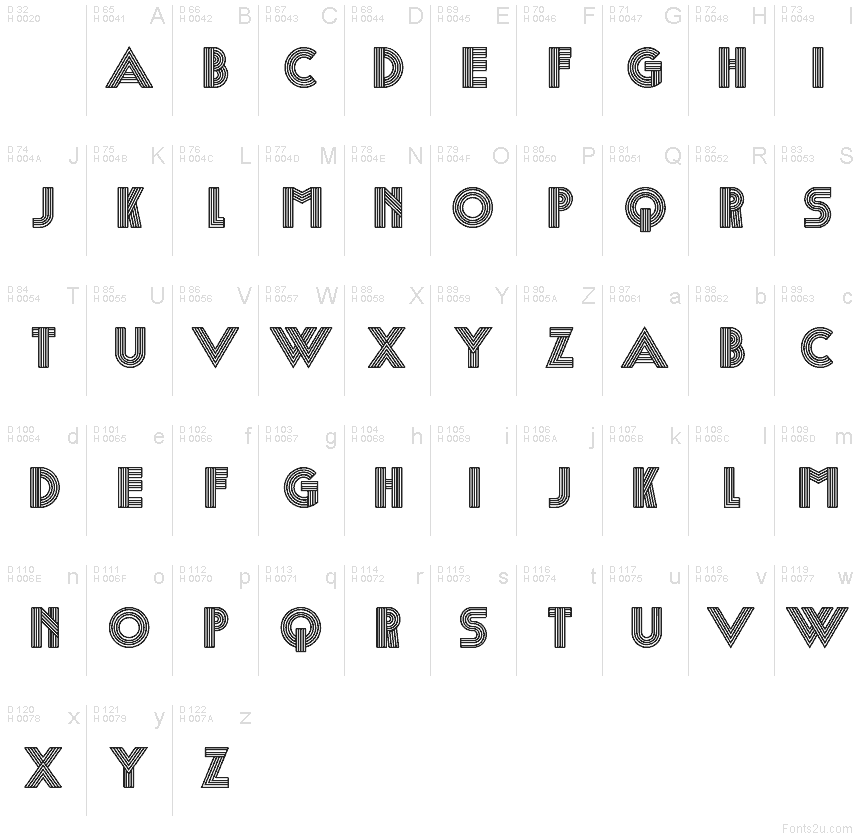
Retro Typo Extravagant font by Vladimir Nikolic is a bold display font with groovy, geometric, multi-line letters. Inspired by the Art Deco movement, its optical illusion effects produce the ultimate visual experience. With thick lines and a solid presence, the typeface impression when used is dramatic and unique thanks to its artistic style twist.
Download Retro Typo Extravagant free bold font for headings in posters, flyers, magazines and newspapers. Write movie titles or video games’ main characters with unusual lettering style. Use it for branding, logo design, packaging labels or typography art posters. The attention-grabbing letters will also stand out on signage boards and infographics alike!